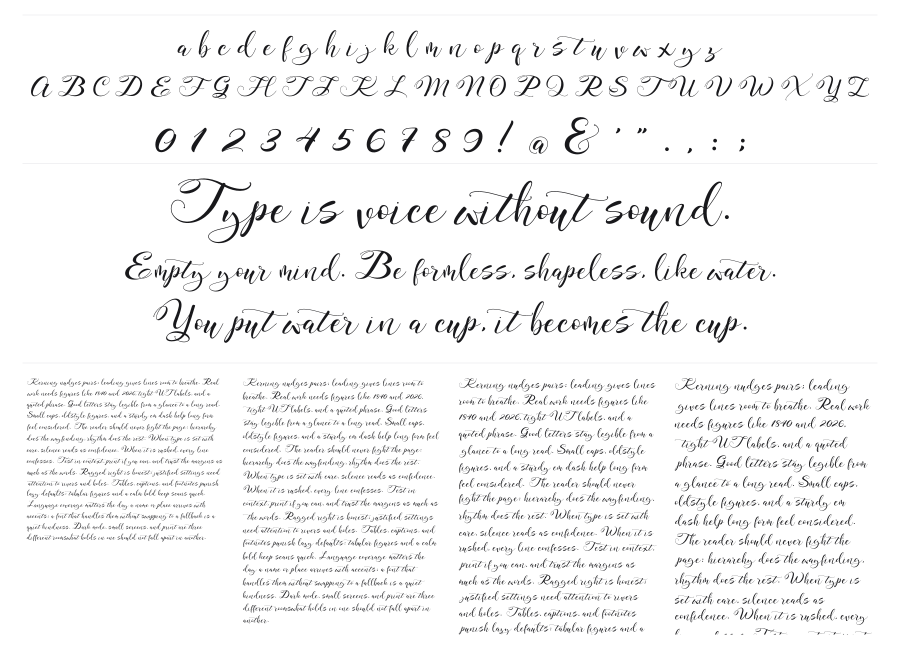
Mahdaleina
Mahdaleina is a flowing calligraphic script from Thirtypath with graceful, sweeping letterforms that feel romantic and distinctly feminine. The strokes have a natural rhythm to them, connecting with the kind of effortless elegance you'd expect on wedding invitations, save-the-dates, and fine stationery. It's a decorative face at heart, so it shines brightest in short passages like names, headings, and monograms where the ornamental detail can stand out.